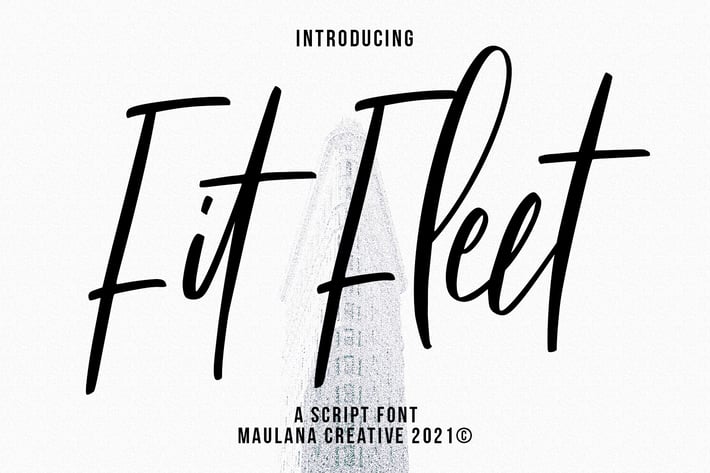
Fit Fleet Script Font
Fit Fleet is a casual script font, with a light felt-tip stroke, slanted and fun character. It has Opentype features ligatures of character, To give you an extra creative work. Fit Fleet script font support multilingual more than 100+ language. This font is good for logo design, Social media, Movie Titles, Books Titles, a short text even a long text letter and good for your secondary text font with sans or serif. Make a stunning work with Fit Fleet font.